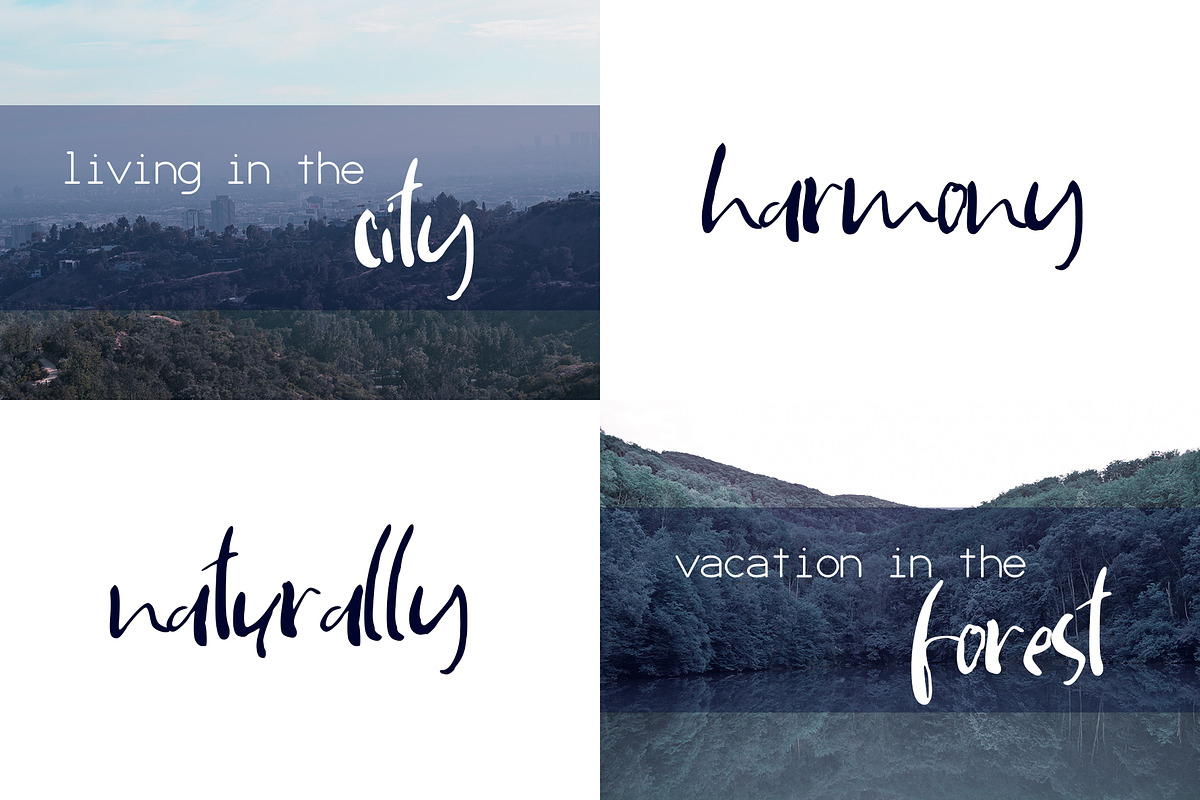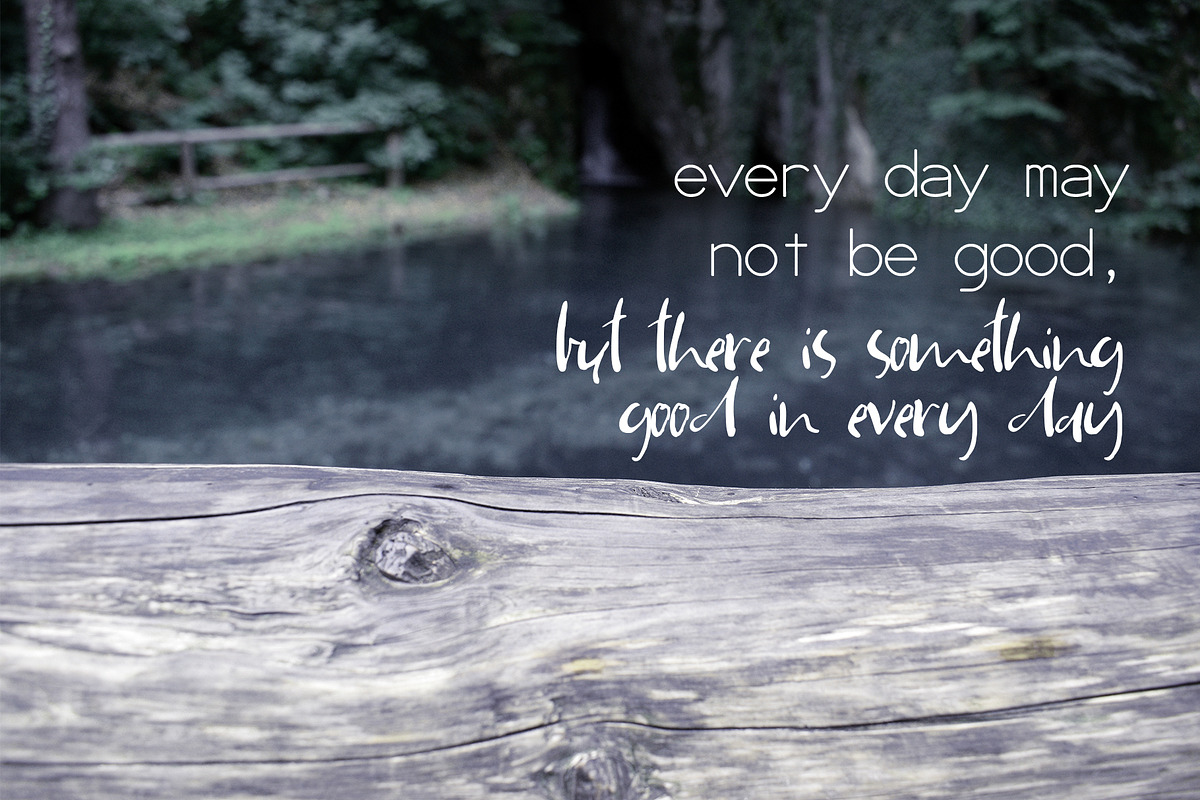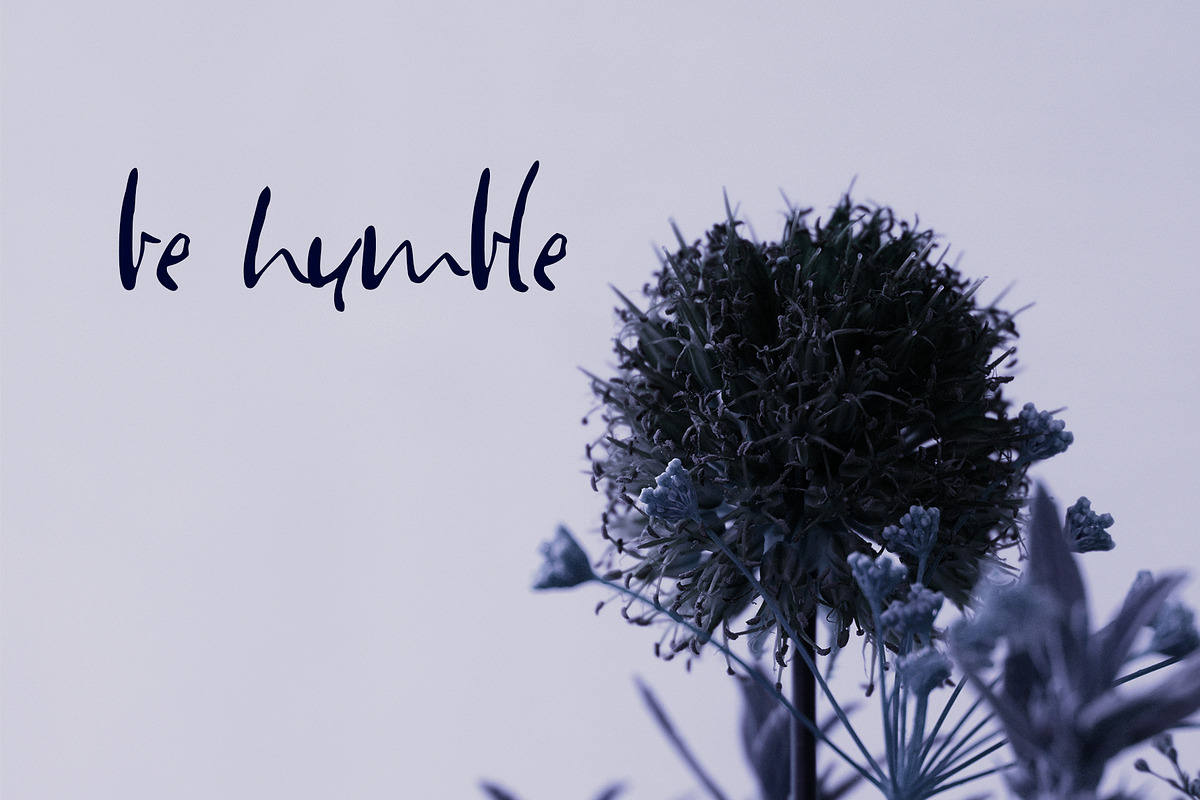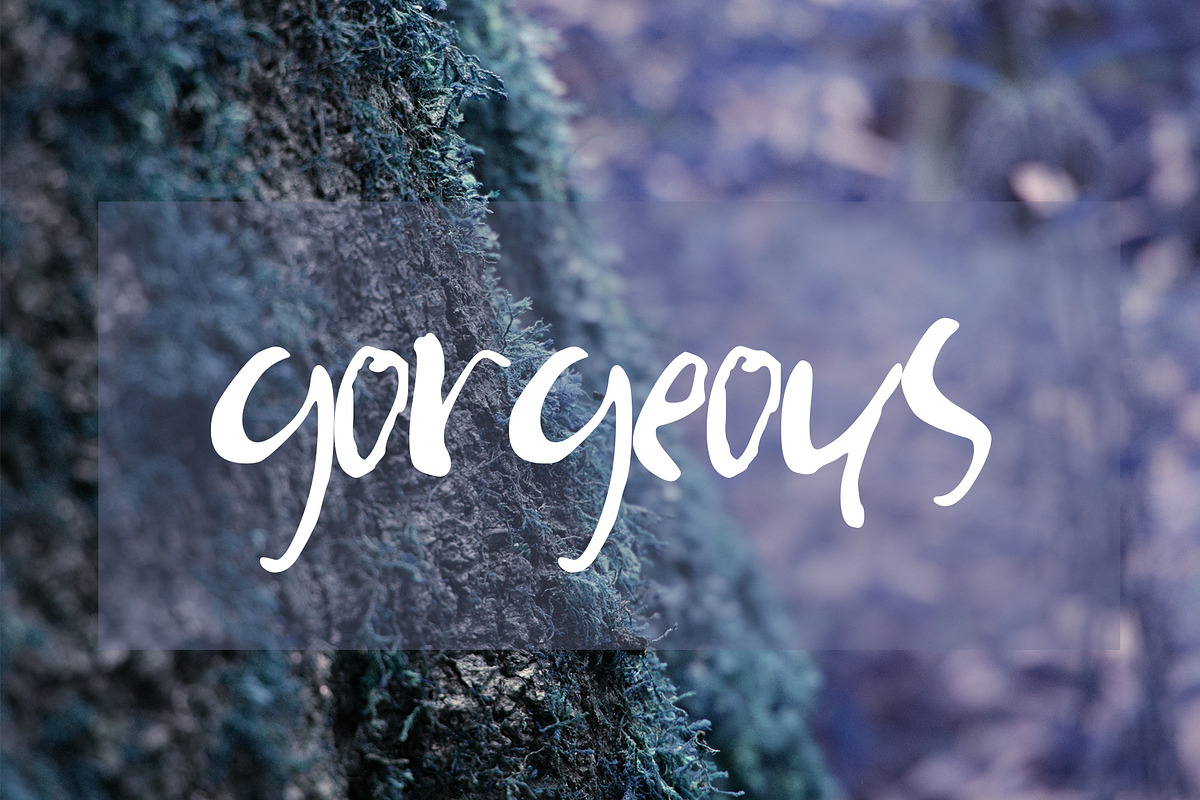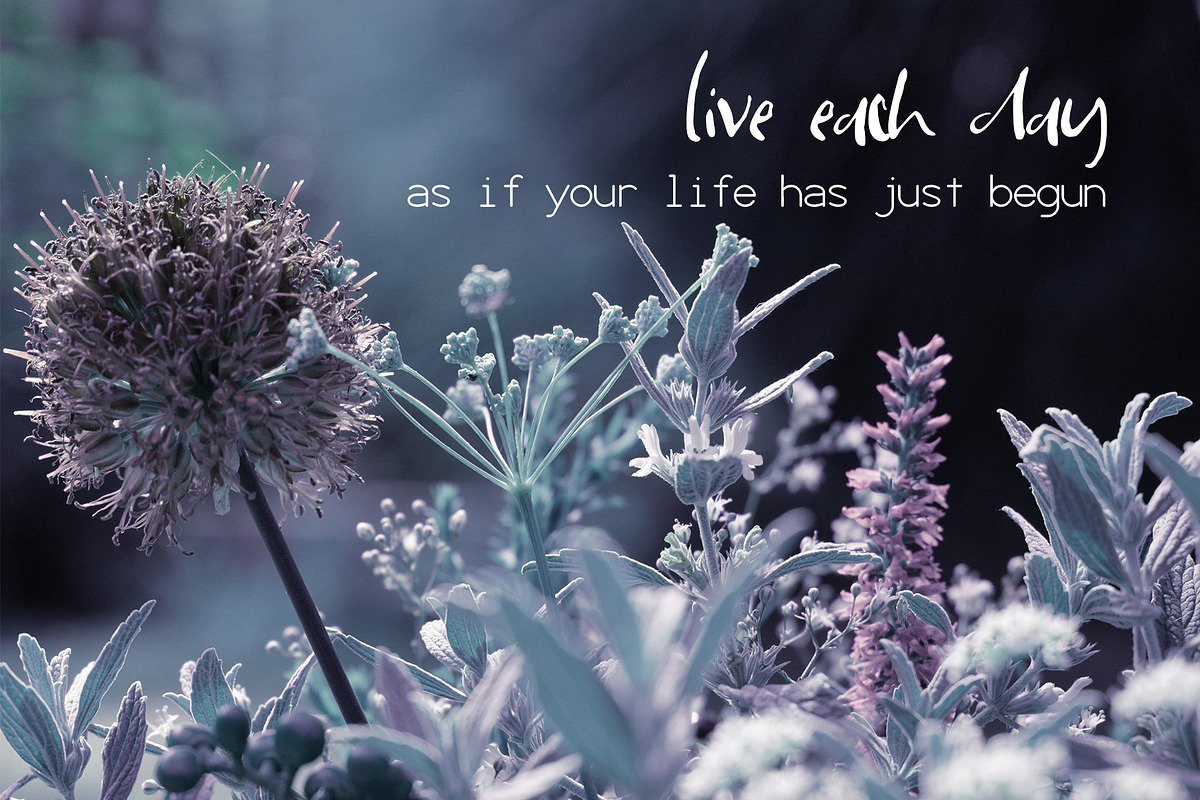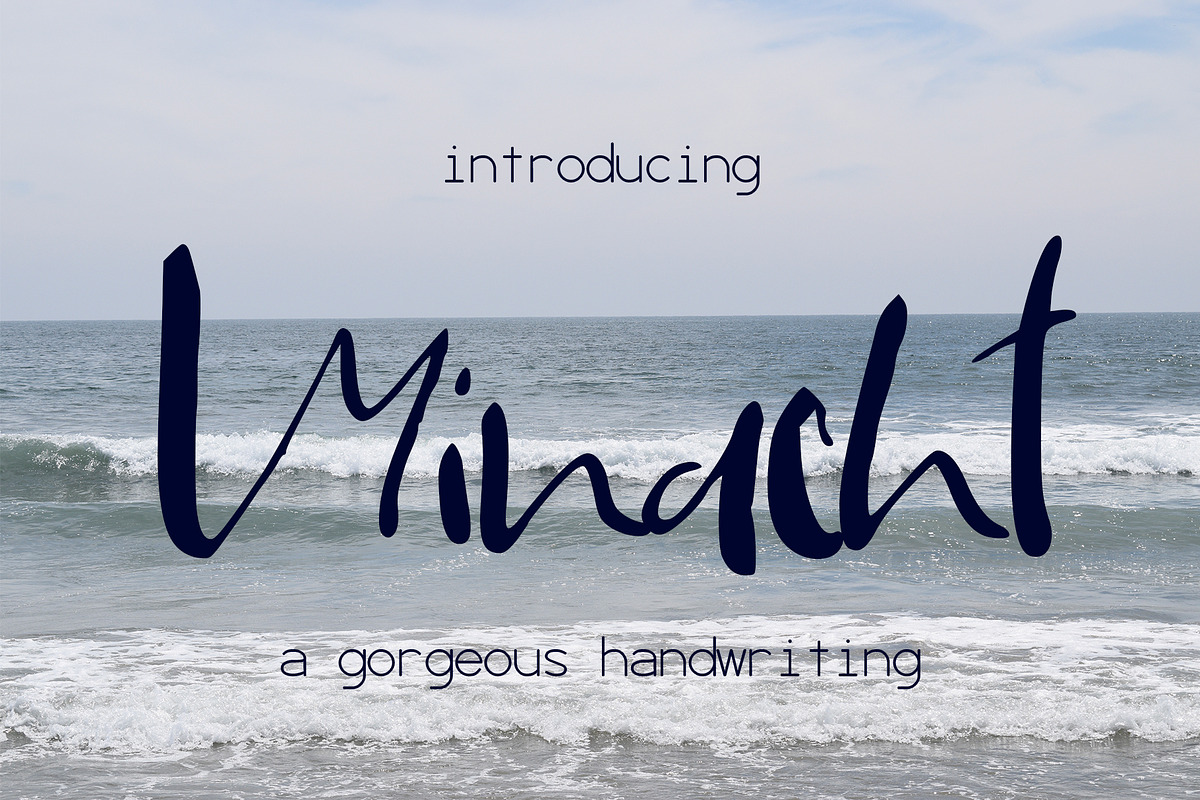
Minacht Font
Introducing Minacht, a gorgeous handwritten font.💗 Perfect for any calligraphic and logo designs, wedding and birthday invitations.
- Minacht font contains upper & lowercase characters, full set of punctuation and numerals.
Minacht Font by SophieSaxo fits naturally into Branding, posters, packaging, typography.